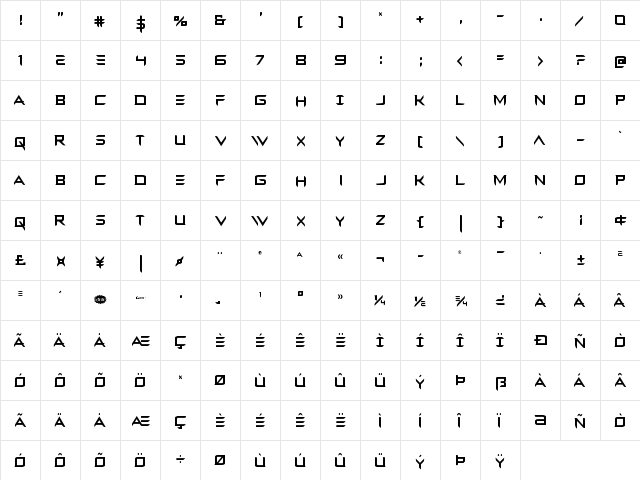
Ferret Face Condensed Condensed
Design Context for Ferret Face Condensed Typeface
Ferret Face Condensed is a composed and adaptable typeface that performs quietly and consistently across a wide range of design contexts. Its narrow stance lets it pack a punch even in space-constrained designs.